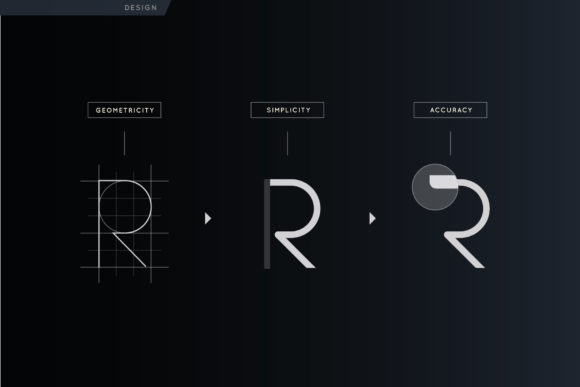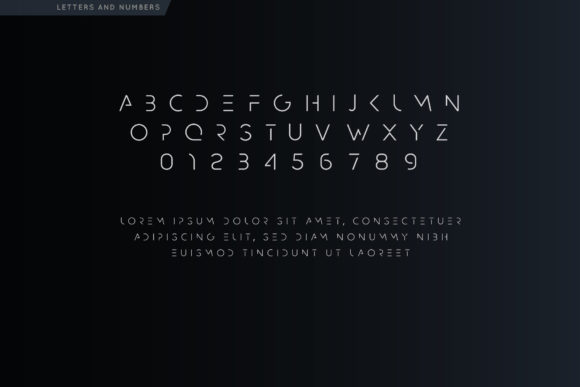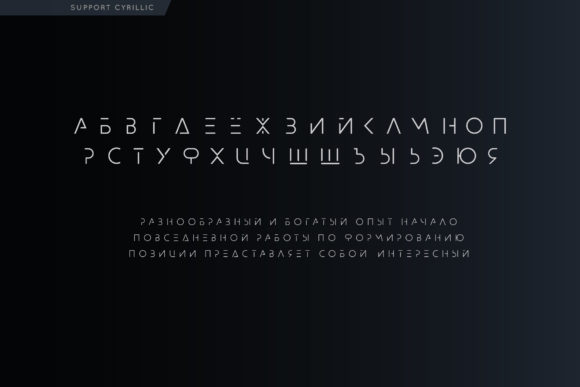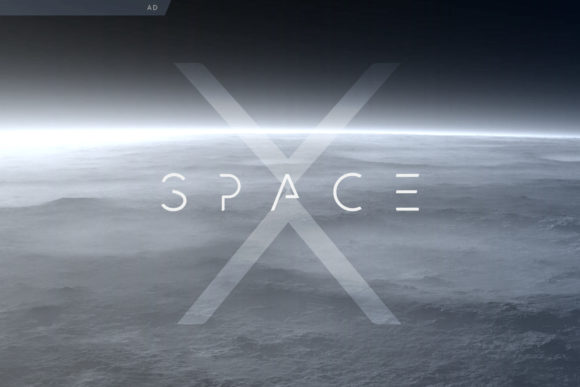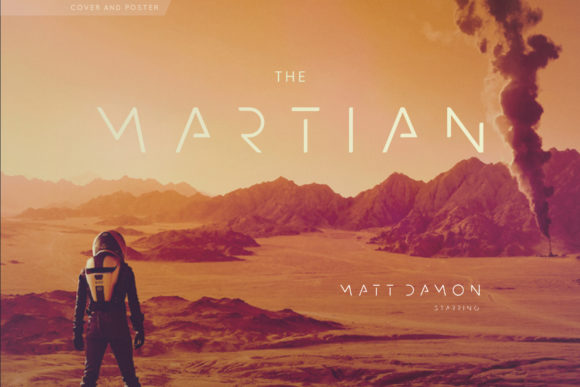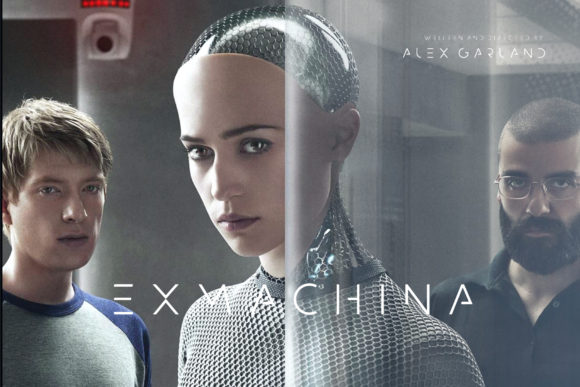
The Futurism Font: A Designer’s New Best Friend
I still remember the frustration of working on a project, hours spent perfecting every detail, only to be held back by a font that just didn’t feel right. My client wanted something modern, sleek, and eye-catching, but I was stuck with a bland, generic sans-serif. That’s when I discovered the Futurism Font, and let me tell you, it was a game-changer! 💡
So, what makes Futurism Font so special? Here are a few things I love:
- ✨ Clean and minimalist design: Futurism Font is perfect for projects that need a modern, sophisticated look.
- ✅ Easily readable: Despite its minimalist design, this font is incredibly legible, even at smaller sizes.
- 💡 Versatile: Futurism Font is a display font that can be used for headings, titles, and even short paragraphs.
Of course, no font is perfect, and there are a few quirks to be aware of:
- 🤔 Limited use for body text: While Futurism Font is great for headings and titles, it’s not the best choice for longer blocks of text.
- ⚠️ Some glyphs may not be suitable for all languages: As with any font, it’s essential to test Futurism Font with your specific language and character set.
The Designer Inspiration Behind Futurism Font
Futurism Font was designed with the goal of creating a clean, modern sans-serif that could be used for a wide range of creative projects. Inspired by the sleek lines and minimalist aesthetic of futuristic designs, this font is perfect for designers who want to add a touch of sophistication to their work.
| Font Name | Futurism Font |
| Author | artyway |
| What type of projects is Futurism Font best suited for? | Futurism Font is ideal for projects that require a modern, sleek look, such as branding, advertising, and digital design. |
| Is Futurism Font suitable for body text? | While Futurism Font is great for headings and titles, it’s not the best choice for longer blocks of text. Consider using a serif font for body text. |